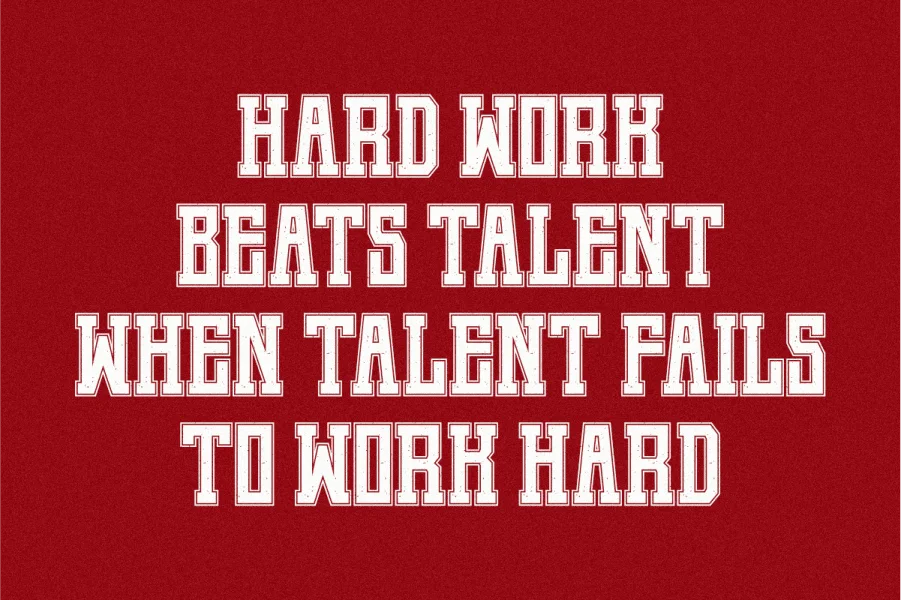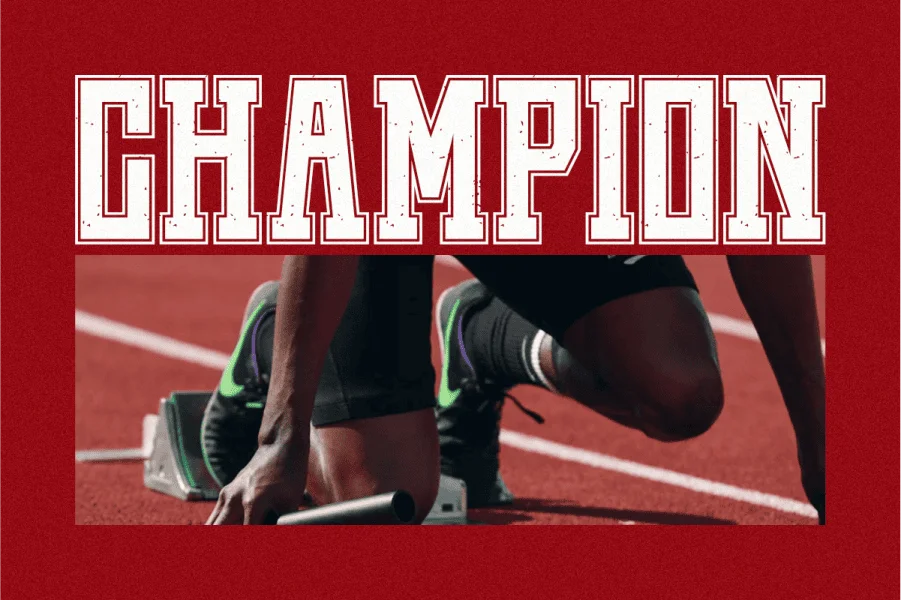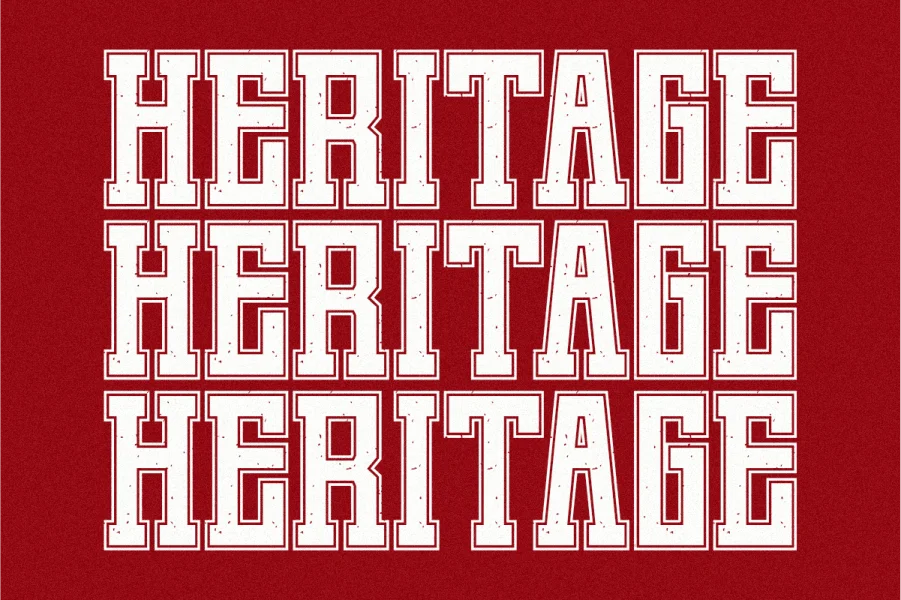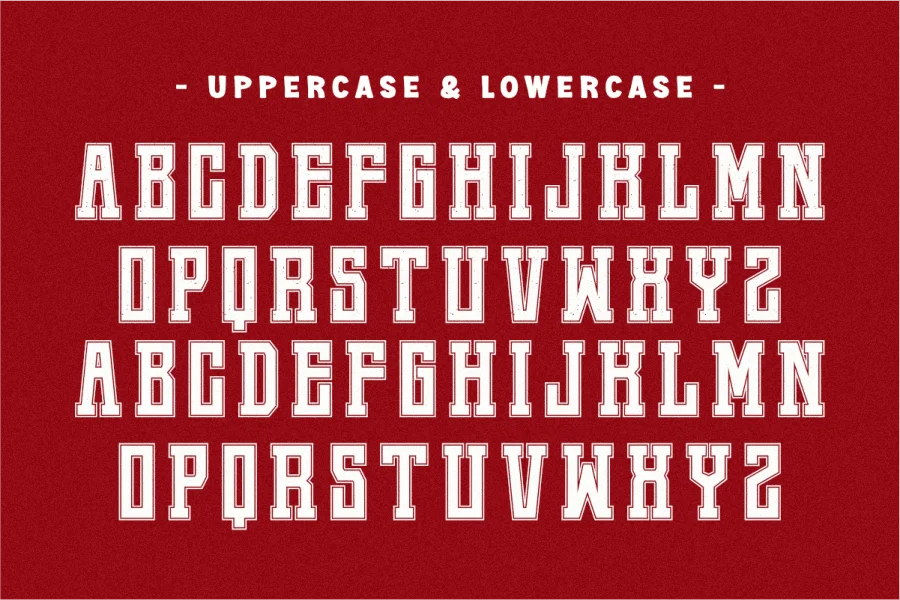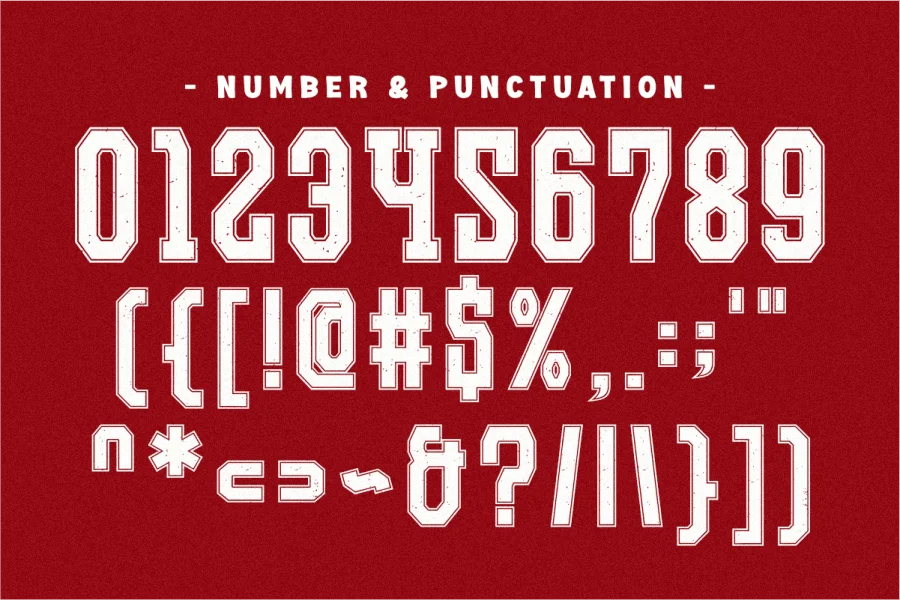
Jersey Varsity is a powerhouse Vintage Slab Serif font that perfectly captures the bold spirit of classic collegiate and sports aesthetics. Featuring a rugged, distressed texture and both Regular and Outline styles, this all-caps font is ideal for high-impact layered designs, athletic apparel, retro posters, and team branding. It delivers a powerful, authentic, and instantly recognizable visual identity, essential for merchandise and headlines demanding an energetic, old-school look.